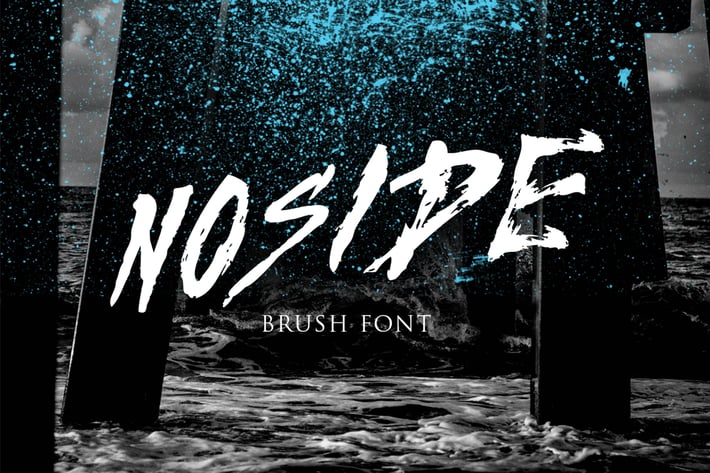
Noside Typeface
Introducing Noside typeface.
Noside typeface is a handdrawn brush,
suitable for good display , clothing, , film title, gigs , cover album, poster, etc .